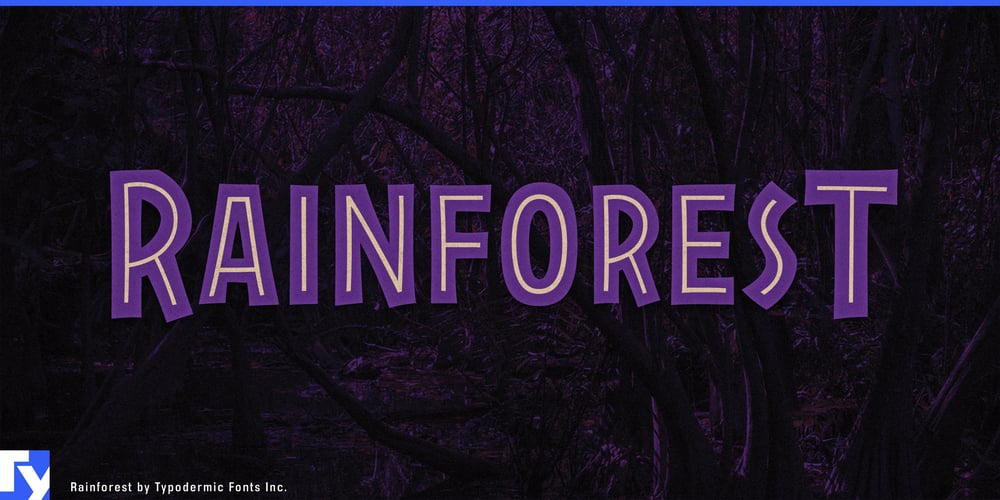
Rainforest
Rainforest font
Rainforest Font Family was designed by Ray Larabie and published by Typodermic. Rainforest contains 3 styles and family package options. Step into a world where letters breathe life and adventure with Rainforest, a small caps display typeface that captures the raw essence of nature’s most vibrant ecosystem. Inspired by the iconic Jurassic Park logo, Rainforest doesn’t just communicate—it roars with primal elegance.This typeface is a modern homage to the spirit of early 20th-century classics like Neuland and Othello, reimagined for the contemporary designer. Rainforest’s characters embody the organic, hand-crafted feel of woodcut prints, evoking the Art & Crafts movement’s celebration of natural forms. Yet, it stands apart with a sleek, refined edge that speaks to today’s sophisticated design sensibilities. Versatility is Rainforest’s second nature. Use it plain to convey earthy authenticity, outlined to add depth and dimension, or as a thin-line layer for a touch of delicate intricacy. Each application reveals a new facet of this typeface’s character, much like the diverse flora of its namesake.From travel posters that beckon adventure seekers to branding that demands attention, Rainforest adapts seamlessly. Its letterforms carry the weight of ancient trees and the lightness of tropical birds in flight, making every design a journey into the heart of untamed creativity. Rainforest speaks fluently across borders, supporting a vast canopy of Latin-based European writing systems. From Afrikaans to Zulu, your message will resonate with the authenticity of a native tongue, ensuring your designs have global appeal.Ready to infuse your work with the spirit of the wild? Let Rainforest be your guide through the dense undergrowth of ordinary typography. It’s an expedition into the extraordinary. Embrace the call of the wild; let your designs evolve with Rainforest.